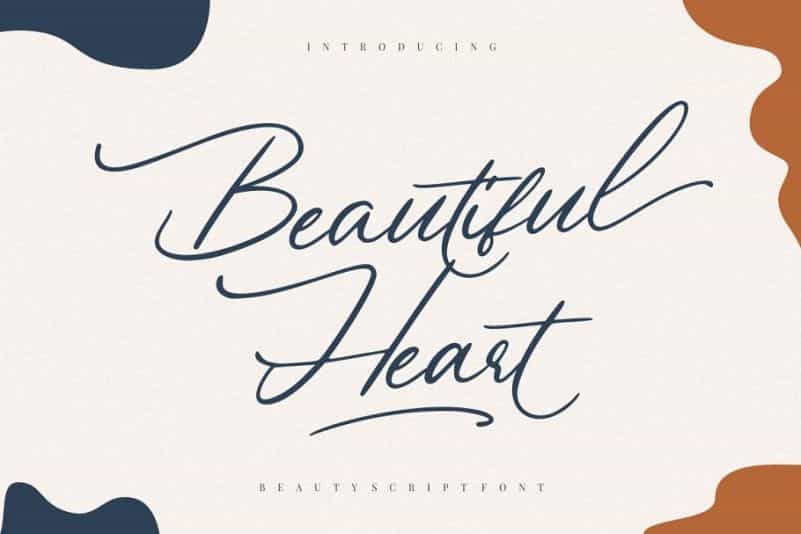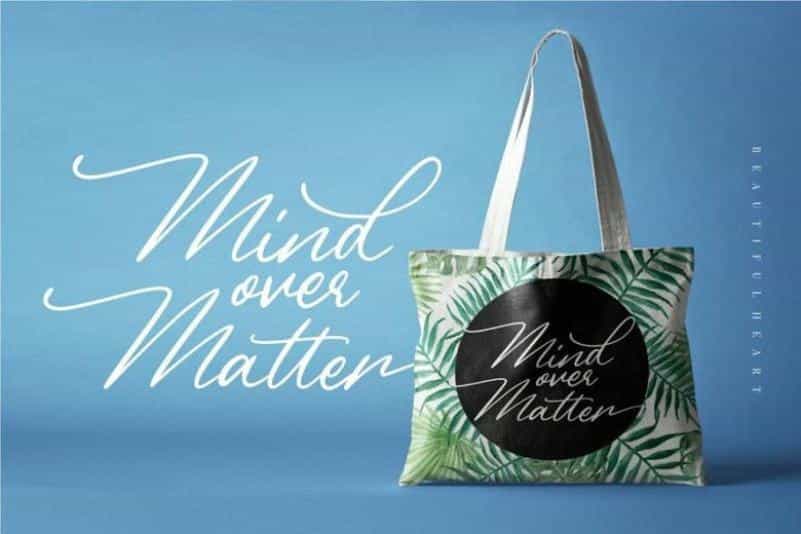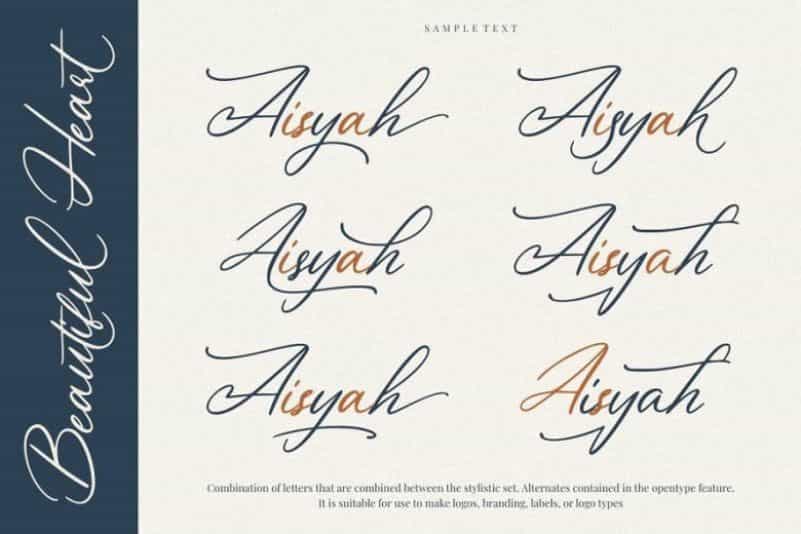
Discover Beautiful Heart Script Font, part of the Calligraphy Handwritten collection—a versatile and unique font perfect for adding a personal touch to your projects. Download it for free and enjoy crafting designs with style, from invitations to social media posts. This font is available exclusively for personal use, giving you the freedom to create without limits. Unlock your creativity with Beautiful Heart Script Font today!
We introduce you Beautiful Heart Font. Beautiful Heart Calligraphy script Typeface, perfect for logo, invitation, stationery, wedding designs, social media posts, advertisements, product packaging product designs, label, photography, watermark, special events or anything else requiring any Popular design.